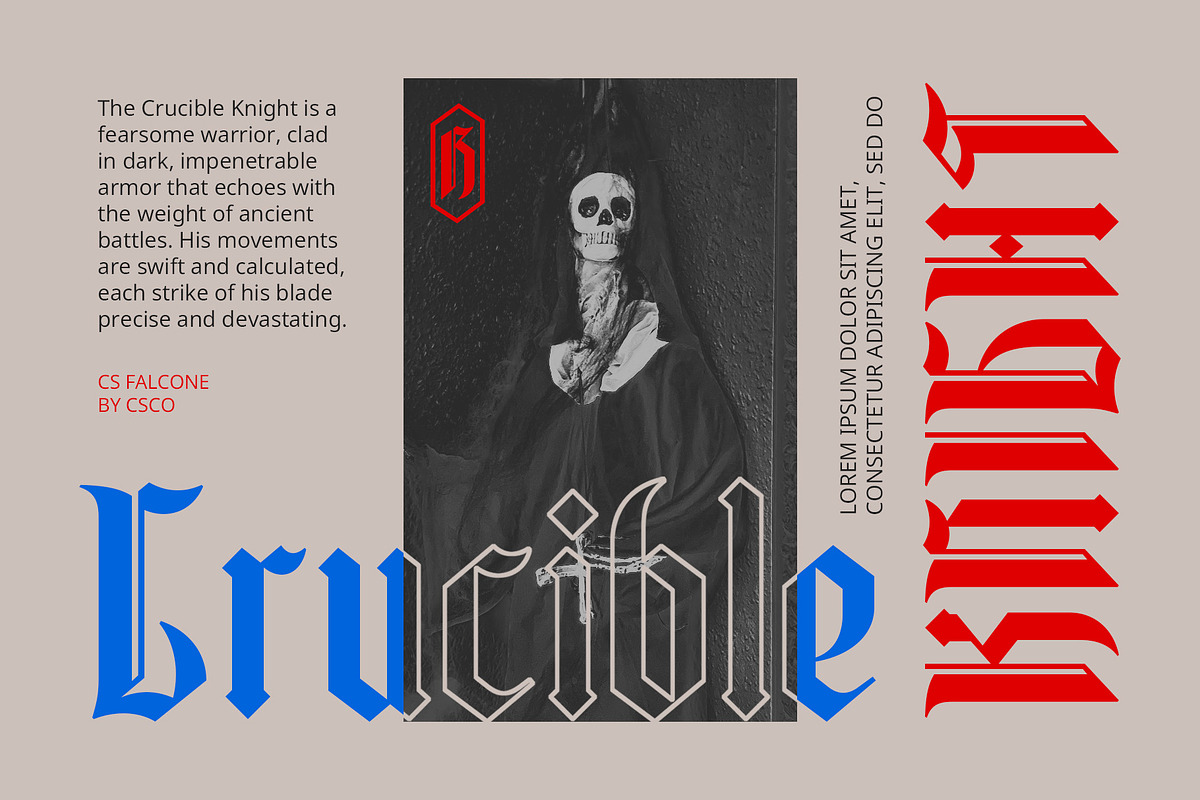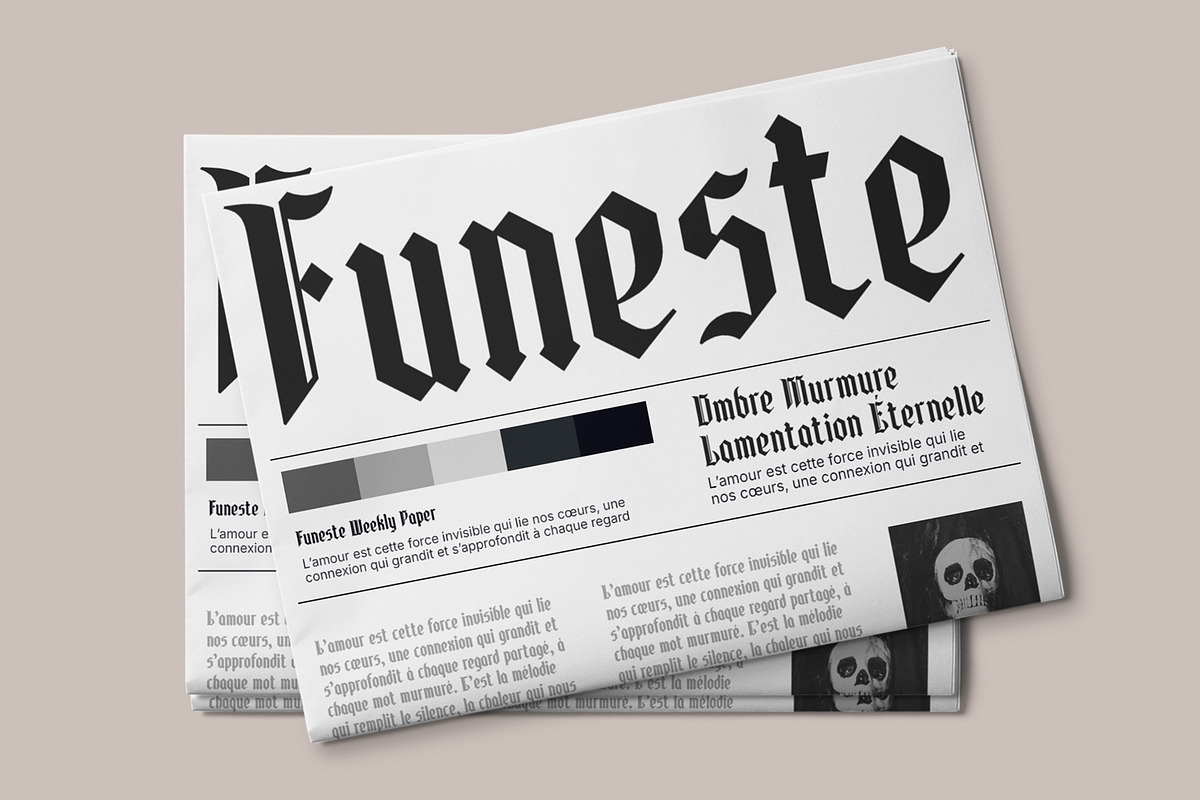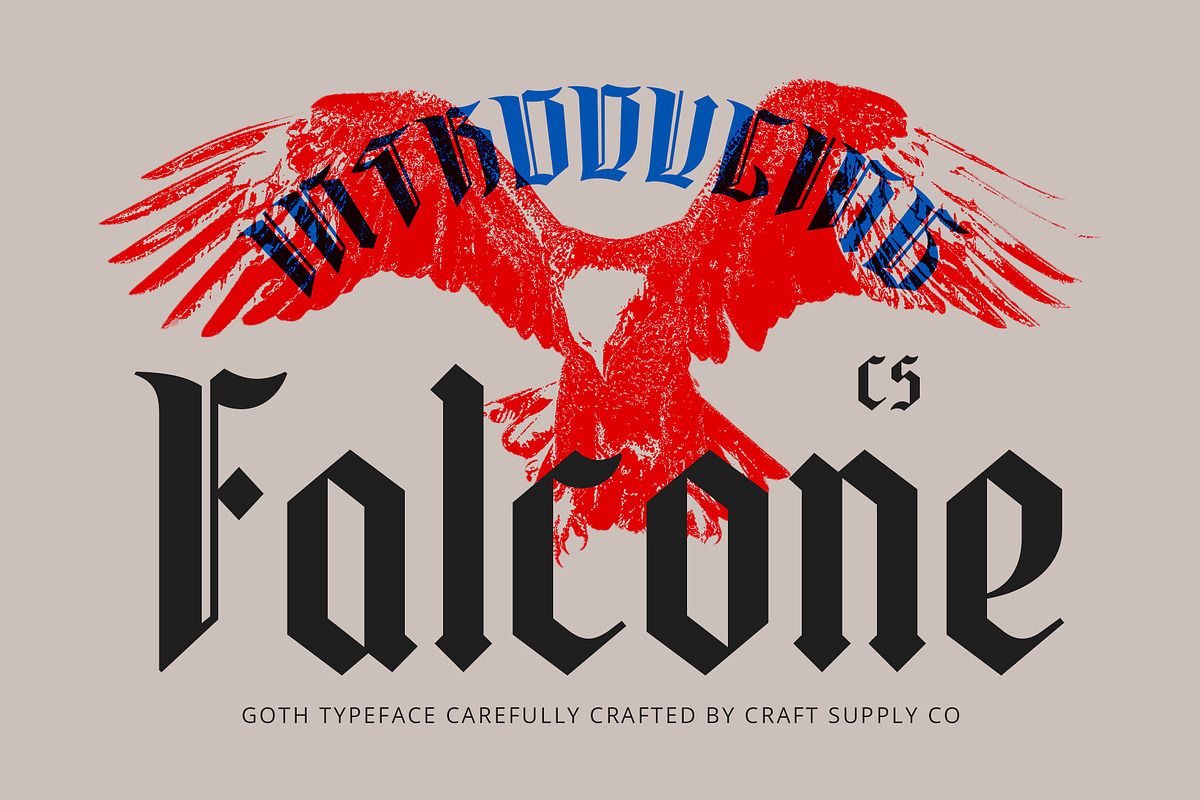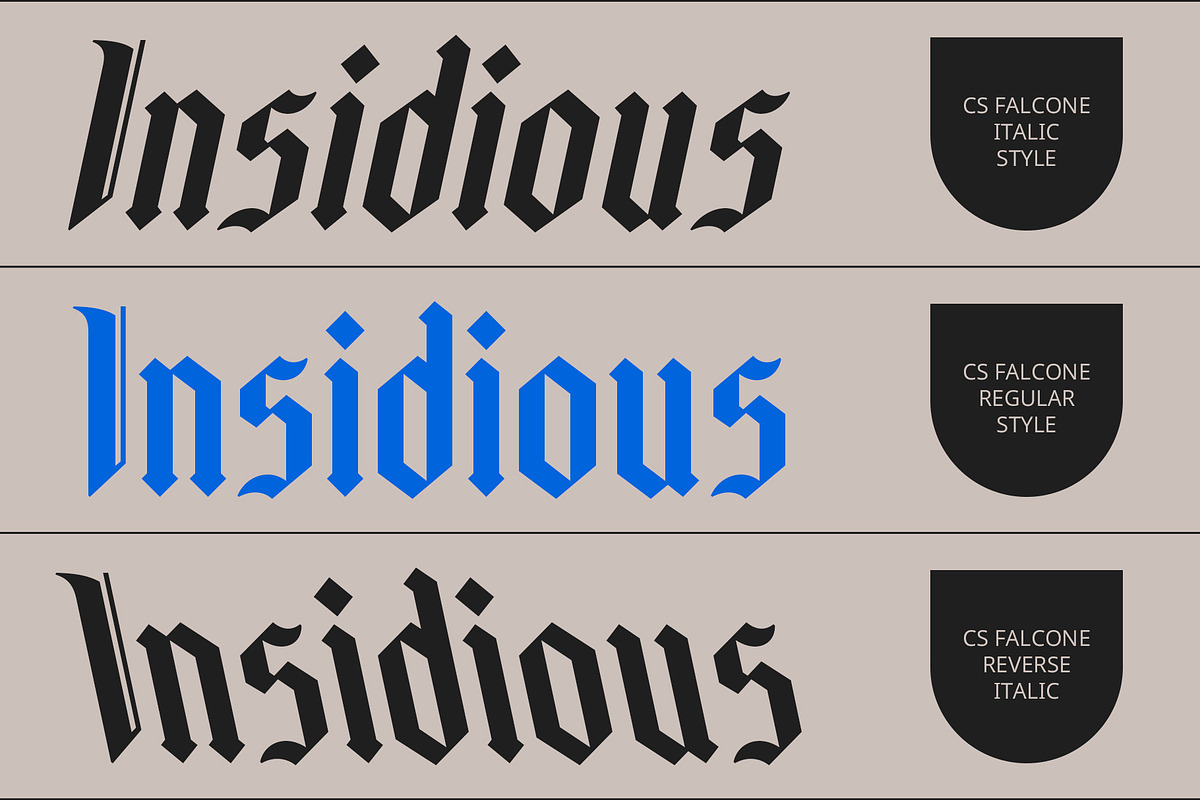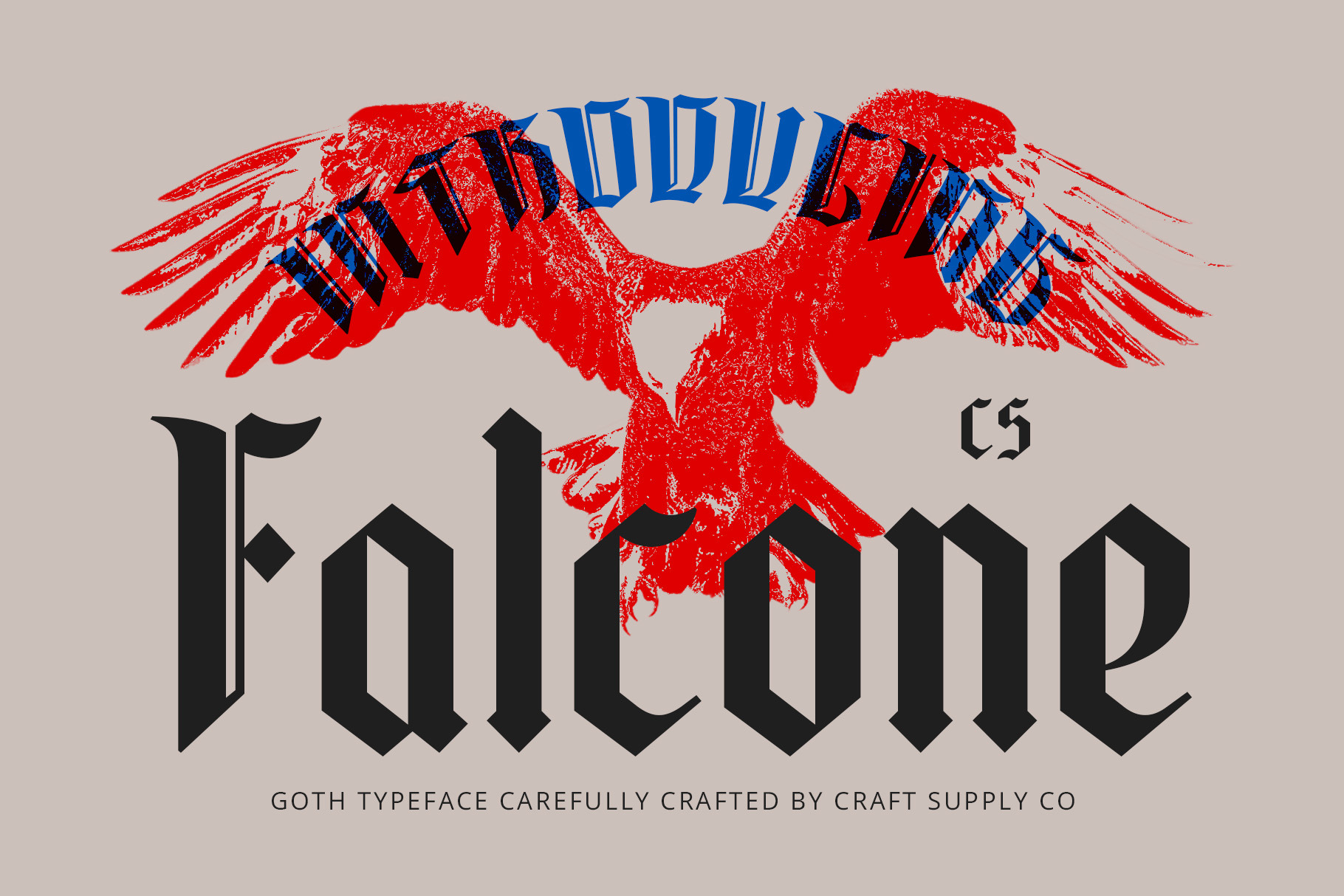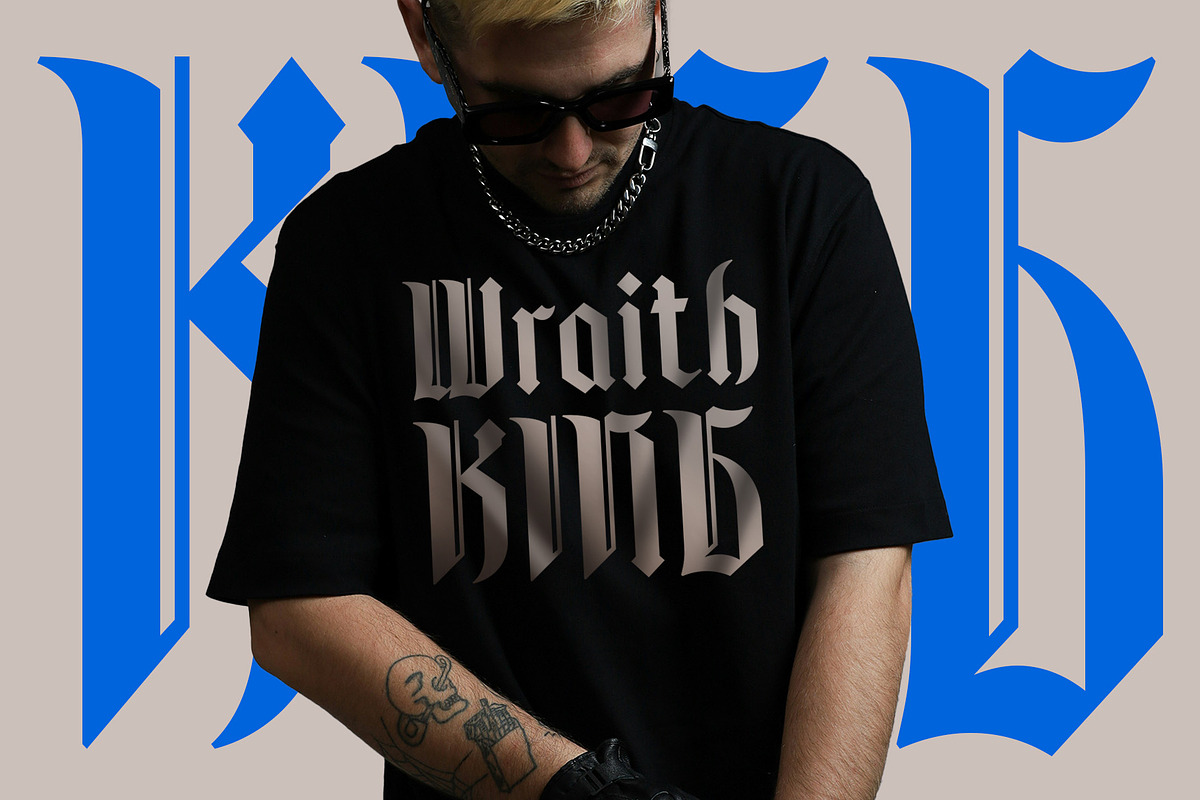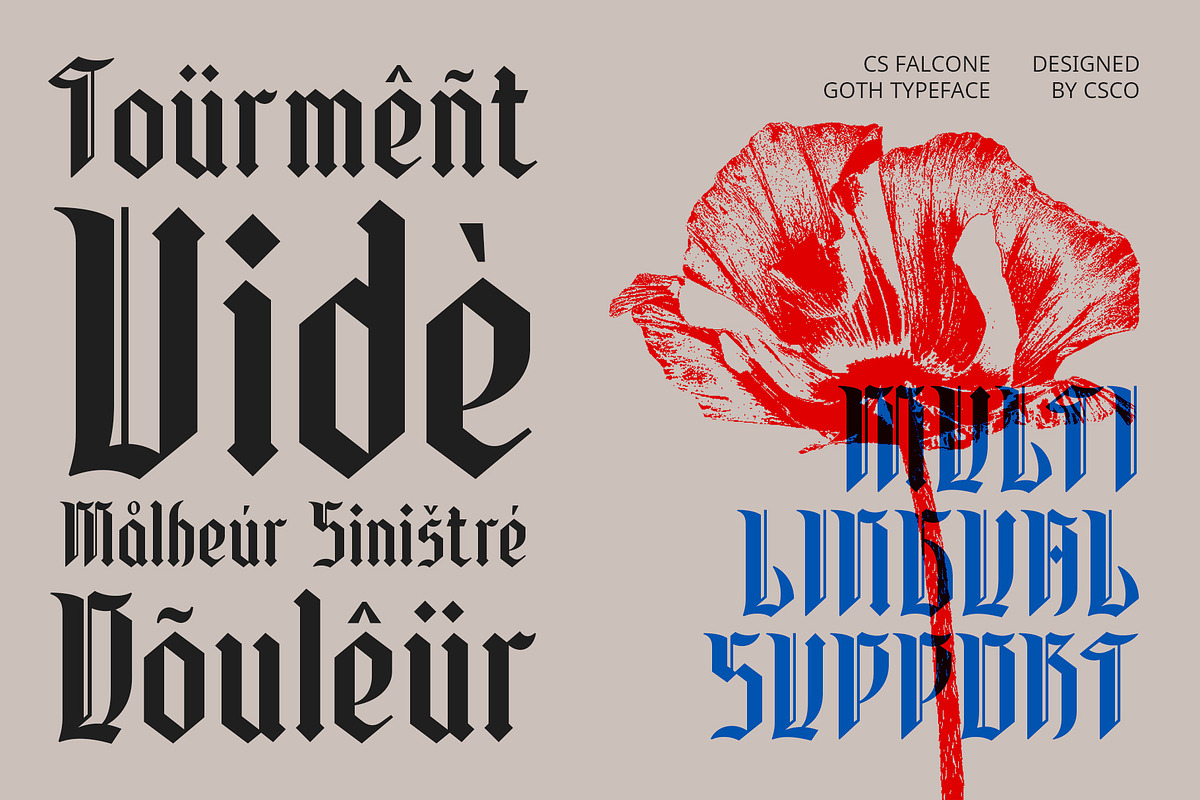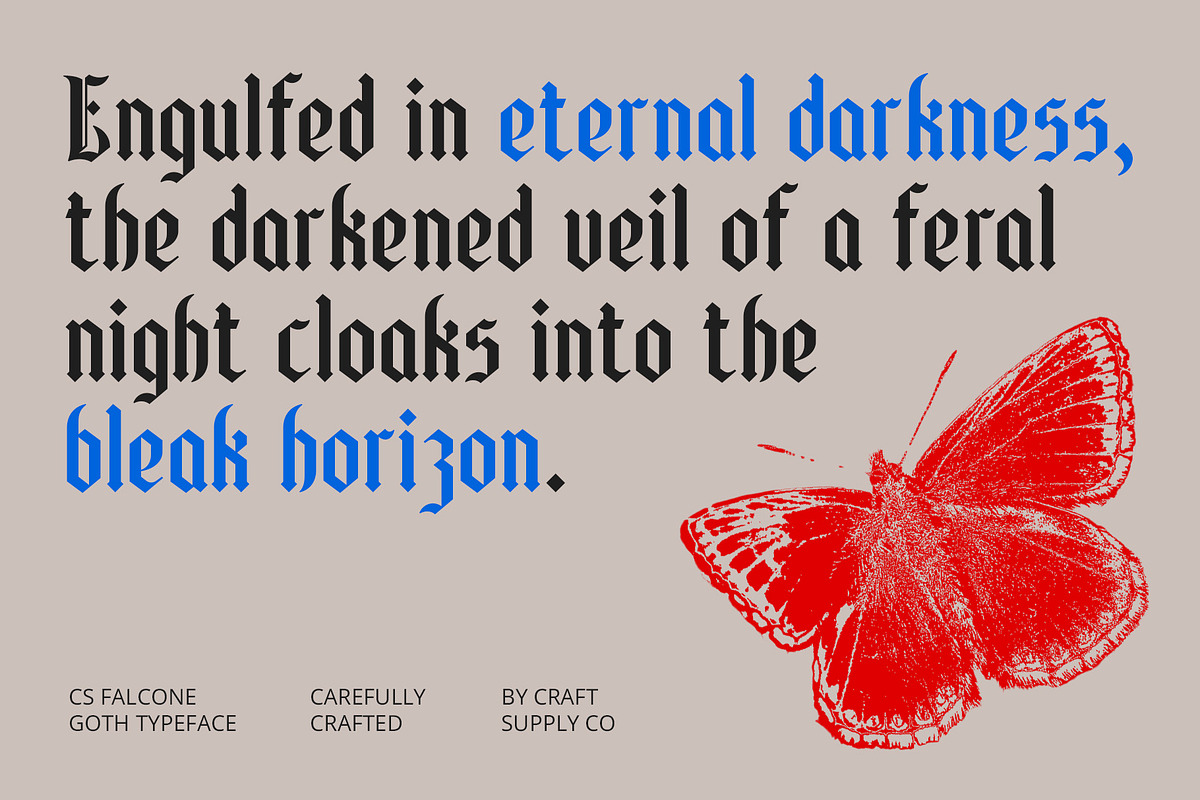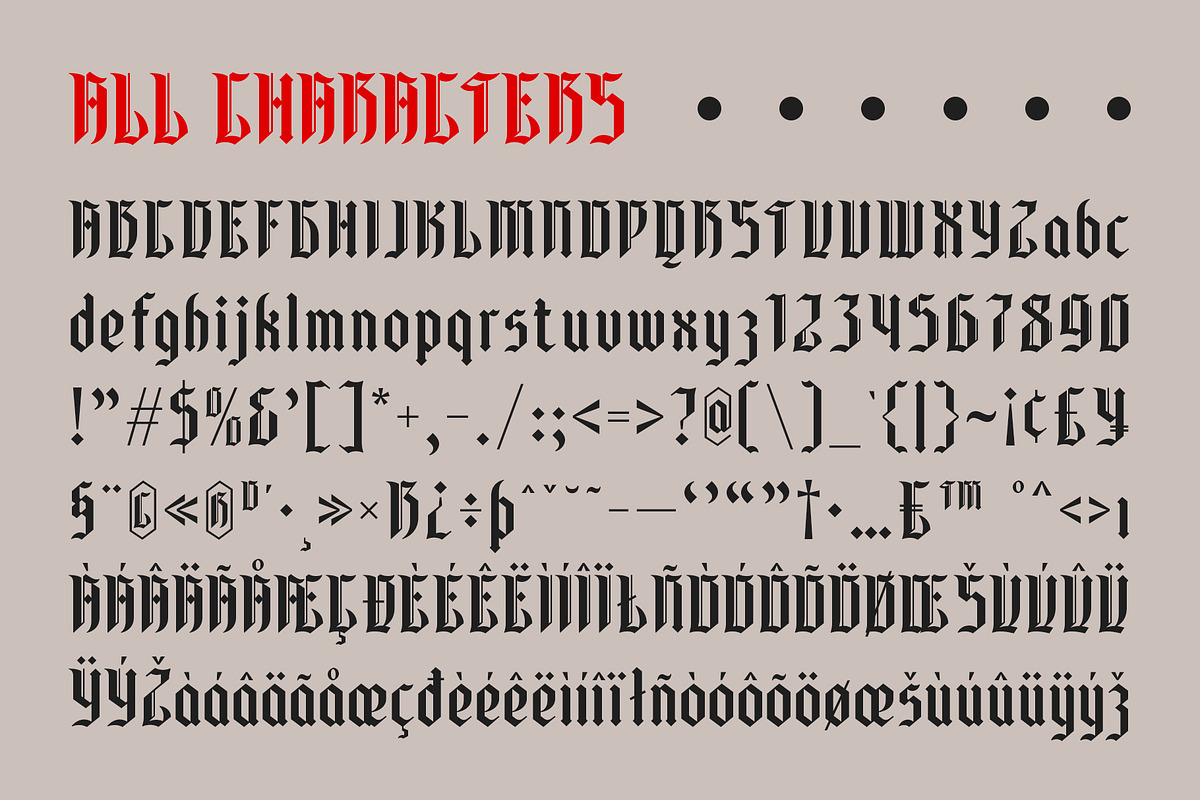
CS Falcone – Gothic Font
CS Falcone – Gothic Elegance with a Bold Presence
Gothic Display Font with Sharp and Bold Design CS Falcone is a Gothic display font that captures the essence of medieval art and architecture. Its dark, bold characteristics, sharp forms, and dominant vertical lines create a dramatic and powerful visual impact, ideal for projects aiming to convey a sense of mystery or historical depth.
Medieval Inspiration for a Striking Impression Inspired by Gothic cathedrals and medieval aesthetics, CS Falcone features strong angles and decorative details, making it perfect for designs requiring a bold and mysterious atmosphere. Its distinctive style evokes the grandeur of the Gothic era, offering a unique and timeless design element.
Perfect for Mysterious and Powerful Designs CS Falcone is ideal for horror movie posters, metal band logos, or any creative projects seeking to emphasize a dark and elegant vibe. Its striking letterforms enhance the visual drama, ensuring your design stands out with intensity and sophistication.
Versatile for a Range of Creative Applications Whether for branding, event posters, or experimental design projects, CS Falcone delivers an unforgettable aesthetic. Its blend of history and bold design makes it a versatile font for those looking to evoke strong emotions and capture attention.
- CS Falcone Regular
- CS Falcone Italic
- CS Falcone Reverse Italic